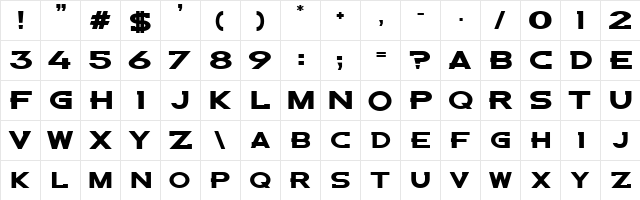
Denver Broncos Custom Regular
Design Context for Denver Broncos Custom Typeface
Denver Broncos Custom is a composed and adaptable typeface that performs quietly and consistently across a wide range of design contexts.